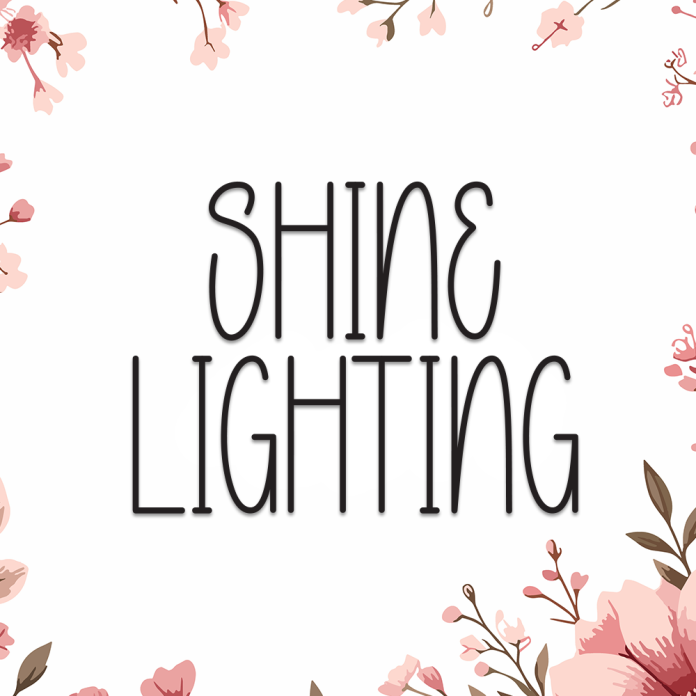
Shine Lighting is a vibrant and energetic display font that shines with boldness and modern flair. With its sharp edges and luminous style, this font is designed to grab attention and illuminate your creative work.
Perfect for event posters, party flyers, YouTube thumbnails, logo headlines, or any design that needs a pop of excitement.
Eye-catching display style
Bold, modern letterforms with glowing character
Great for digital or print use
Make your message sparkle with the electrifying style of Shine Lighting.